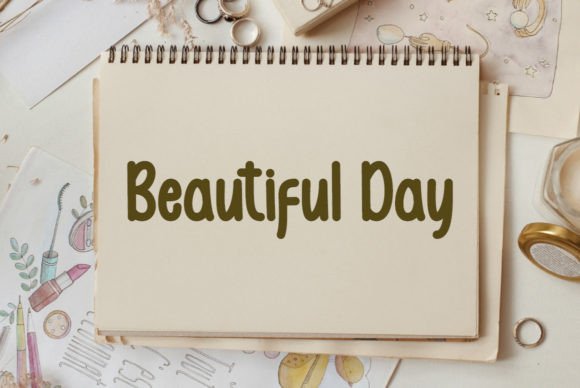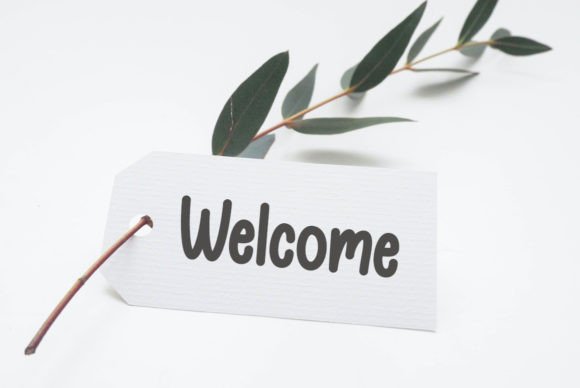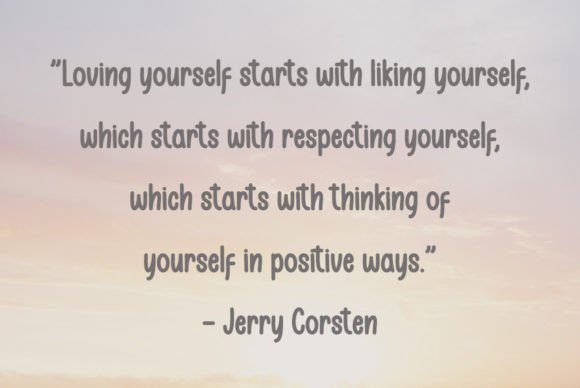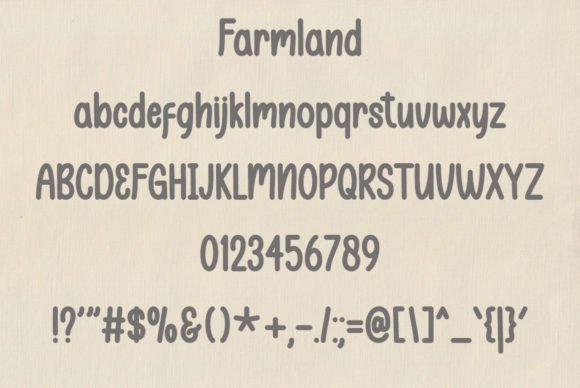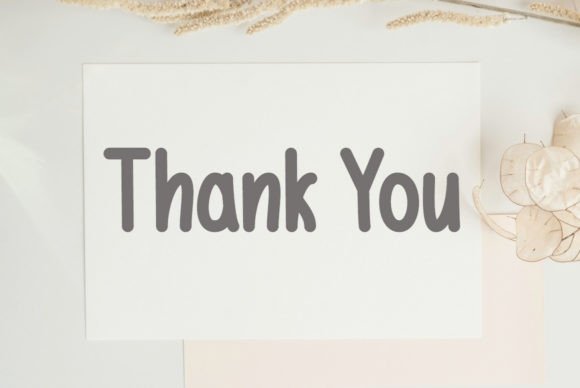
Introduction to Farmland Font
Remember the moment when you stumbled upon that perfect font that elevated your design project from good to great? For many designers, this experience is a defining moment in their creative journey. For us, it was discovering the enchanting Farmland Font.
With its unique, handwritten style, the Farmland Font has become a go-to design resource for creatives worldwide. Its versatility allows it to seamlessly transition from greeting cards to headlines, adding a casual touch to any project. Whether you’re working on a personal creative project or a professional design, the Farmland Font is a high-quality addition to your toolkit. What’s more, it’s available for free download, making it an accessible design resource for designers of all levels.
As a valuable asset in any designer’s arsenal, the Farmland Font is sure to bring a new level of creativity and charm to your next project, whether you’re working on a digital design or a physical print.
Key Features of Farmland Font
- Unique hand-drawn design with a natural, earthy feel, perfect for creative projects that require a touch of rustic charm.
- High-resolution design, suitable for printing at 300 DPI, making it ideal for business cards, brochures, and other marketing materials.
- Features a transparent background, allowing for easy layering and compositing in design projects.
- Available in a range of sizes, from 8pt to 48pt, providing flexibility for use in various creative contexts.
- Can be used in a variety of design applications, including logos, typography, and branding elements, due to its versatility and high-quality design.
Honest Review: Farmland Font
I recently stumbled upon the Farmland Font while searching for a unique design resource for a creative project. As a designer, I’m always on the lookout for high-quality fonts that can add a personal touch to my work. The Farmland Font didn’t disappoint!
- ✨ Unique and quirky design: The Farmland Font has a distinct, vintage feel that’s perfect for adding a touch of whimsy to your design projects.
- ✨ High quality: The font is incredibly well-designed, with crisp lines and a smooth texture that looks great at any size.
However, I did encounter a few limitations while working with the Farmland Font:
- ⚠️ Limited character set: While the font is perfect for headings and titles, it’s not ideal for body text due to its limited character set.
- ⚠️ Not suitable for transparent backgrounds: Unfortunately, the Farmland Font doesn’t play nicely with transparent backgrounds, which can be a problem if you’re working with complex designs.
Overall, I’m impressed with the Farmland Font’s unique design and high quality. While it may not be suitable for every design project, it’s definitely a valuable resource to have in your toolkit – especially considering its free download status!
Farmland Font is ideal for various creative projects, including:
- Food and beverage branding
- Outdoor and nature-inspired designs